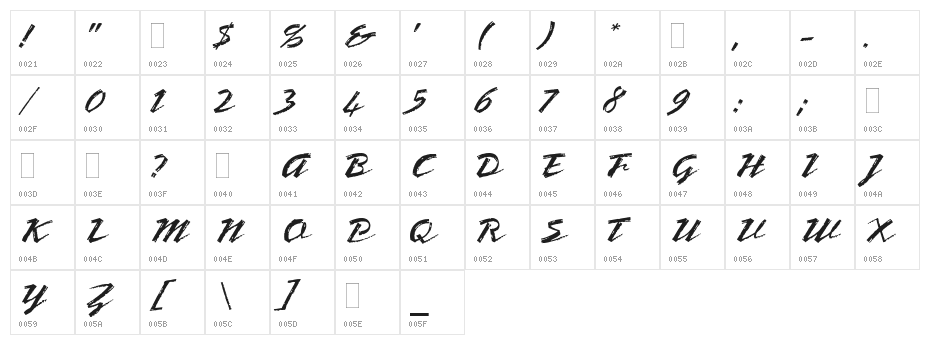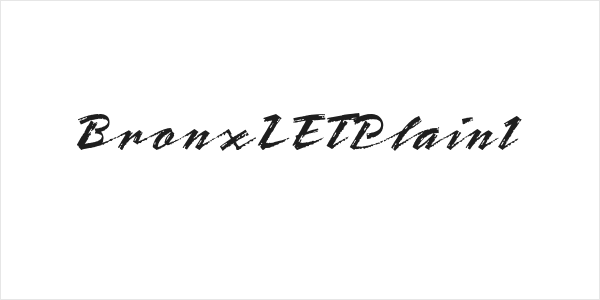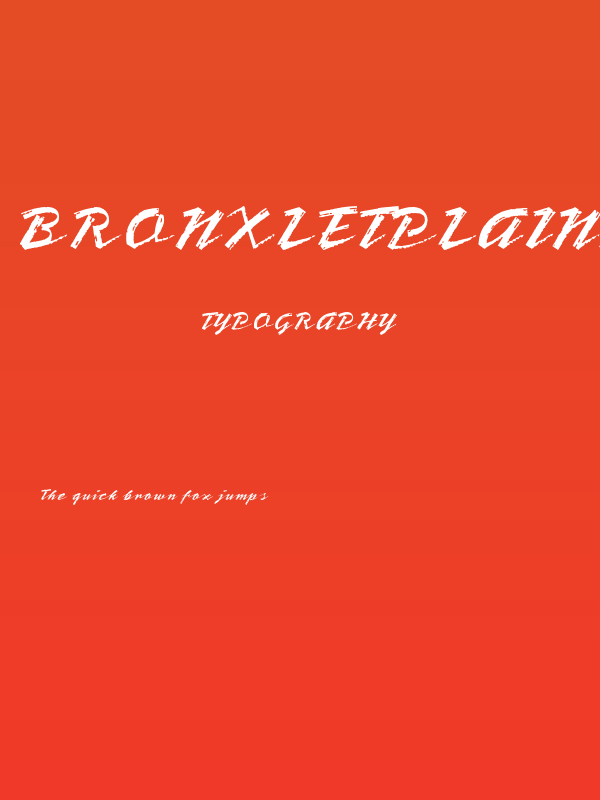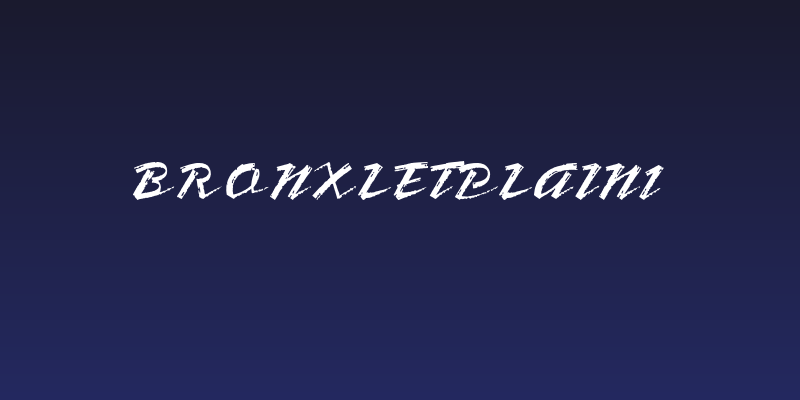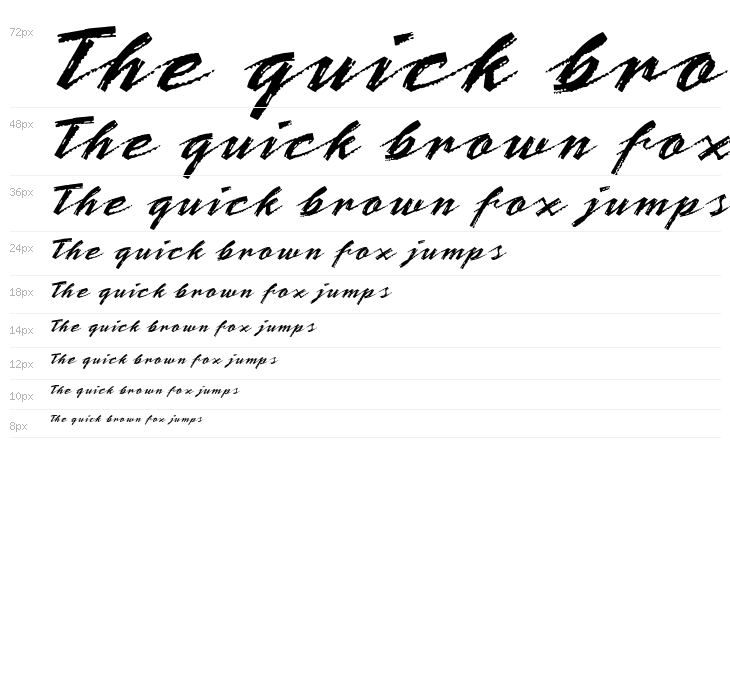
BronxLETPlain1 Font
BronxLETPlain1 Description
This font features a dynamic and expressive style with a brush-like appearance. The characters are slanted, giving it an italicized look, and the strokes are bold with a rough, textured edge that adds a sense of movement and energy. The uppercase and lowercase letters maintain a consistent style, with a slight variation in size and form that enhances its handwritten feel. The numerals and special characters follow the same aesthetic, ensuring uniformity across all glyphs. This font's unique style makes it stand out, perfect for creating eye-catching designs.